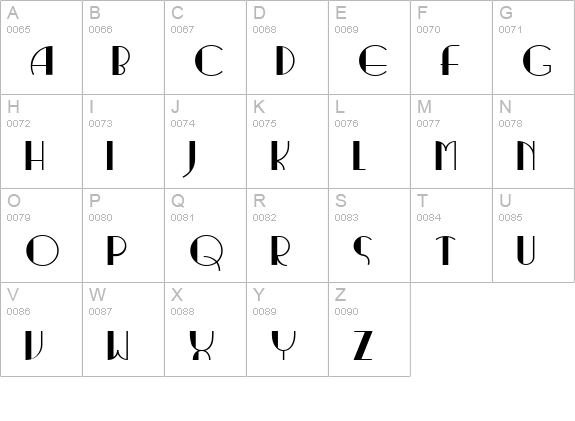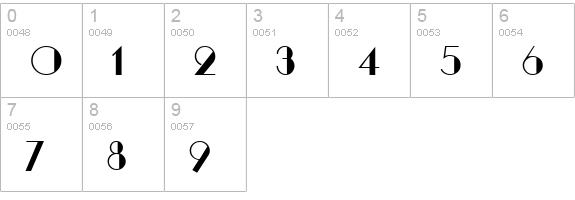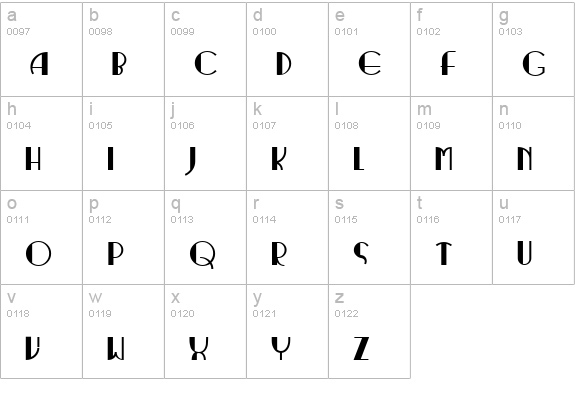
RitzyNormal font is a sleek and elegant typeface that exudes sophistication and style. With its clean lines and refined curves, this font is perfect for adding a touch of class to any design project. Its versatility allows it to be used in a variety of contexts, from luxury branding to editorial layouts. What sets RitzyNormal font apart is its availability for free. That's right, this stunning font can be freely downloaded at FontsMarket.com. Whether you are a professional designer looking to elevate your creations or an amateur designer wanting to experiment with high-quality typography, RitzyNormal font offers the perfect solution. The attention to detail in this font is truly remarkable. Each letter is carefully crafted to ensure legibility and aesthetic appeal. The smooth curves and balanced proportions create a harmonious overall look that is pleasing to the eye. RitzyNormal font effortlessly combines classic elegance with modern simplicity, making it suitable for a wide range of design projects. This font is not only visually appealing but also highly practical. It is available in various weights, allowing for versatility in design choices. From thin and delicate to bold and impactful, RitzyNormal font can adapt to any design brief. Whether you are designing a logo, a website, or a magazine spread, RitzyNormal font will add a touch of sophistication to your project. Its timeless appeal and clean design make it a reliable choice for any design endeavor. So why wait? Download RitzyNormal font for free at FontsMarket.com and unlock the potential to create stunning and elegant designs. With its availability and versatility, this font is a must-have for any designer looking to make a statement. Let RitzyNormal font elevate your designs and captivate your audience with its timeless beauty.